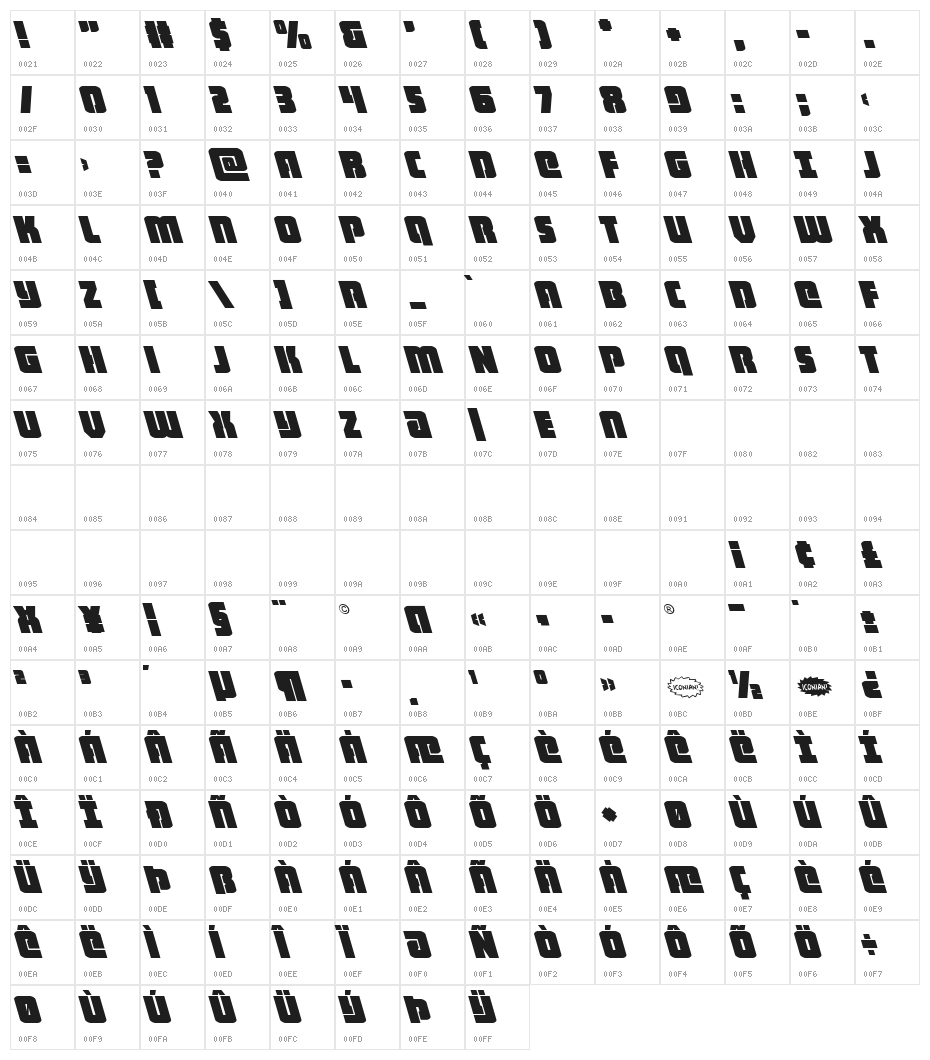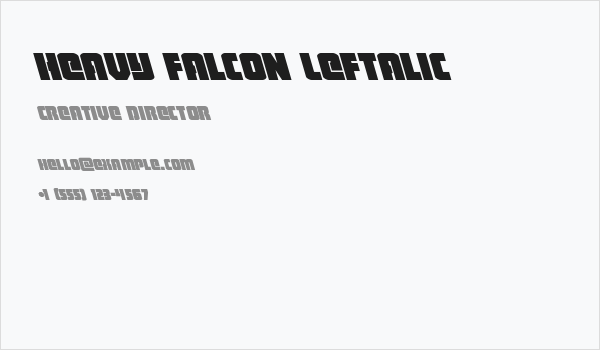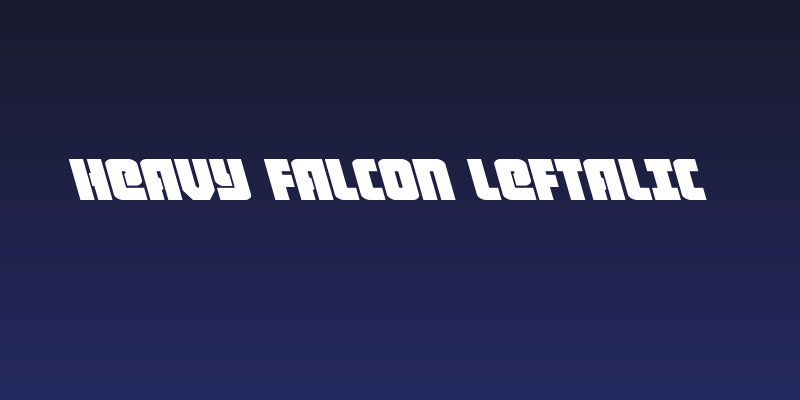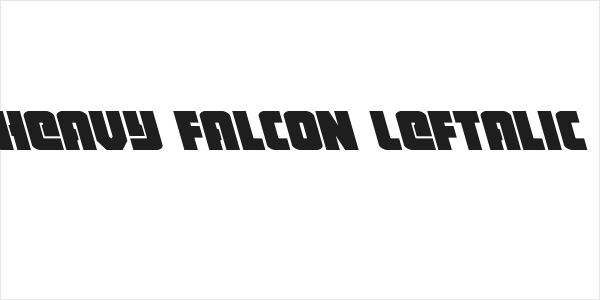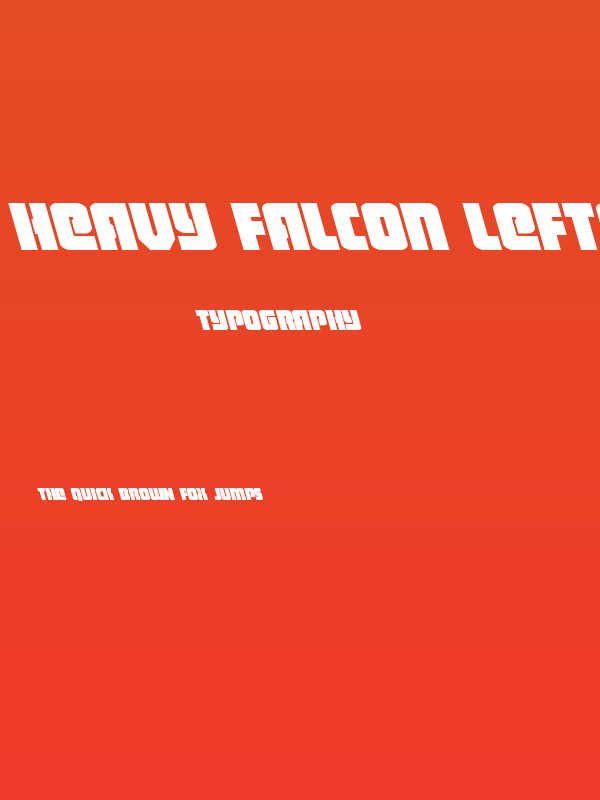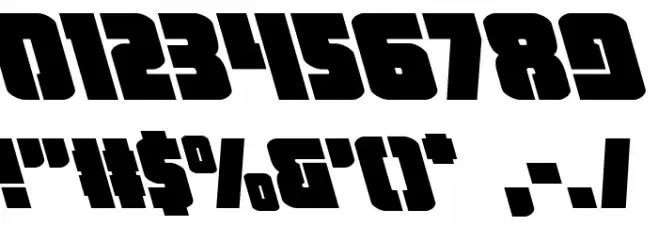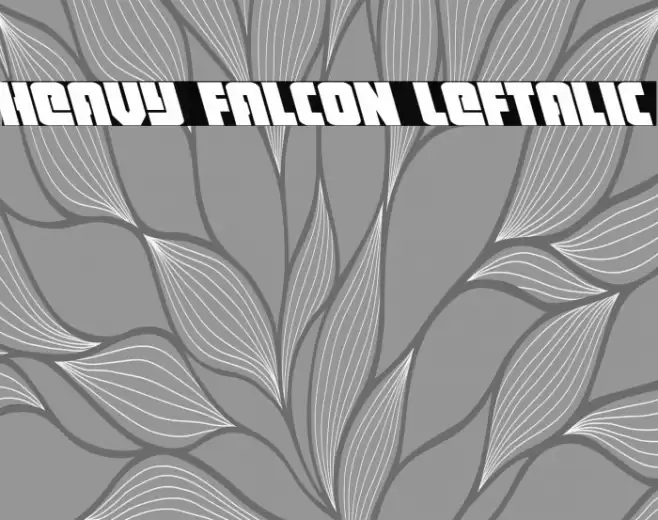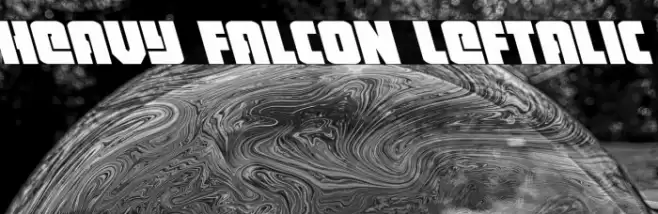
Heavy Falcon Leftalic Font
This font exhibits a bold and dynamic style with a strong geometric influence. The characters are heavily weighted, creating a powerful visual impact. The slanted design gives it a sense of motion and energy, making it stand out in any context. The uppercase and lowercase letters maintain a consistent style, with sharp angles and clean lines. The numbers and special characters follow the same bold and angular design, ensuring uniformity across all elements. This font is ideal for projects that require a striking and modern appearance.
| Proposed Projects | Ideal for sports branding, action movie posters, dynamic advertisements, and modern logo designs. |